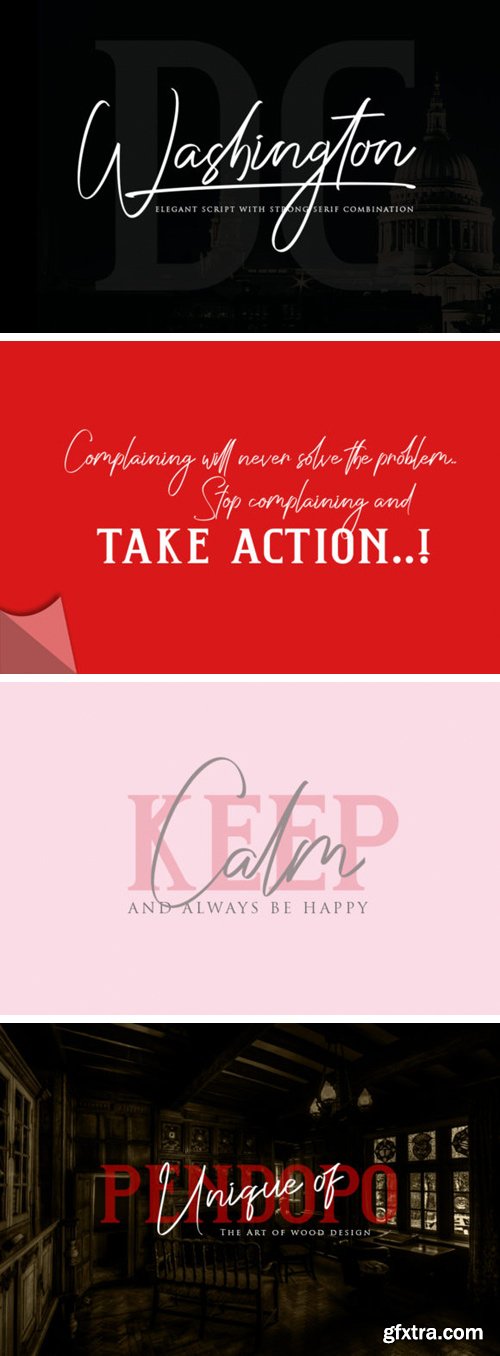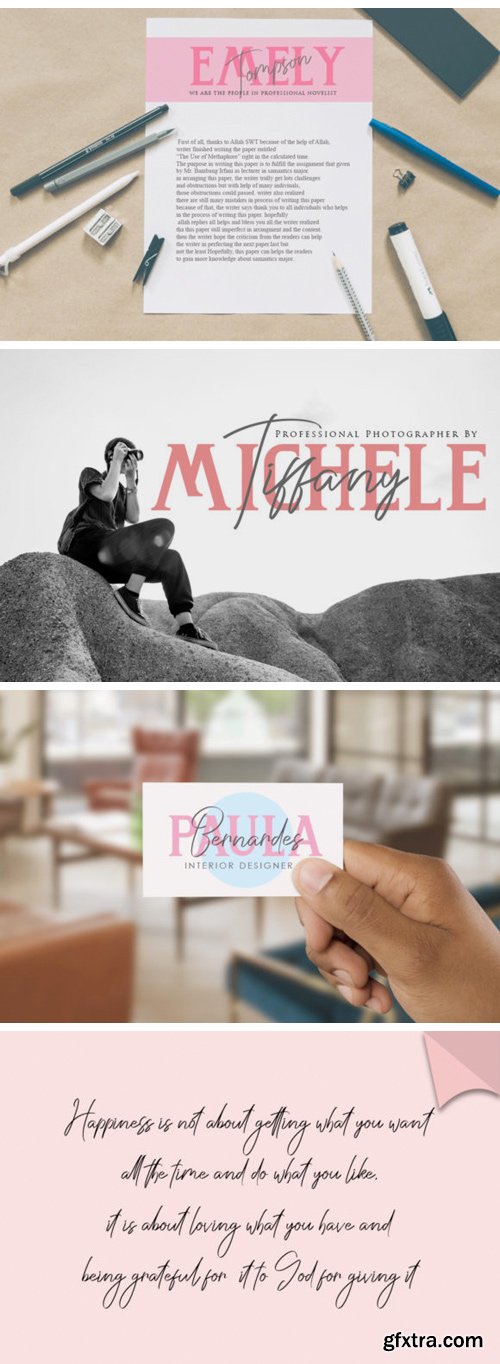
Introduce my New Product "Washington DC" The new fresh handmade script and serif font. Very suitable for greeting cards, branding materials, business cards, quotes, posters, and more! This font are perfect for all brand :)